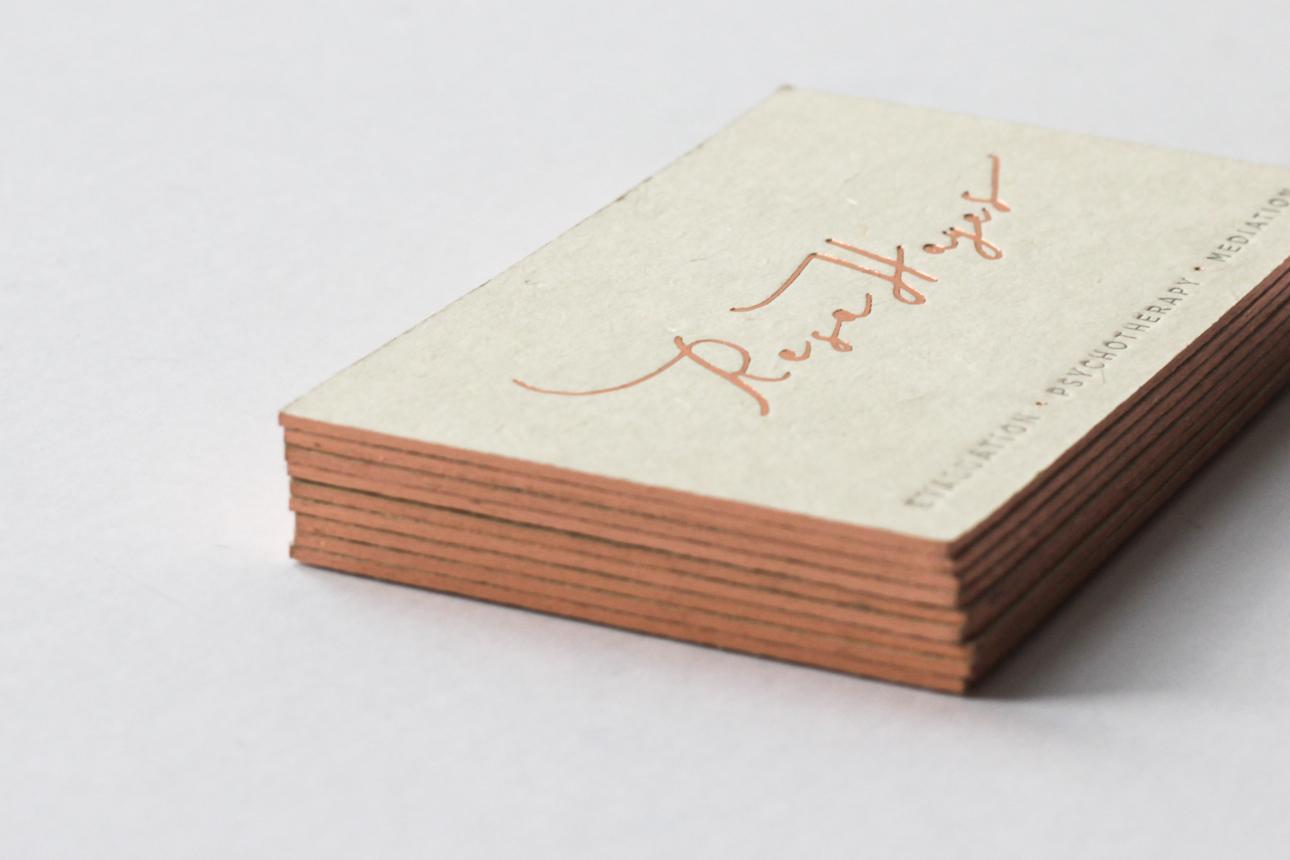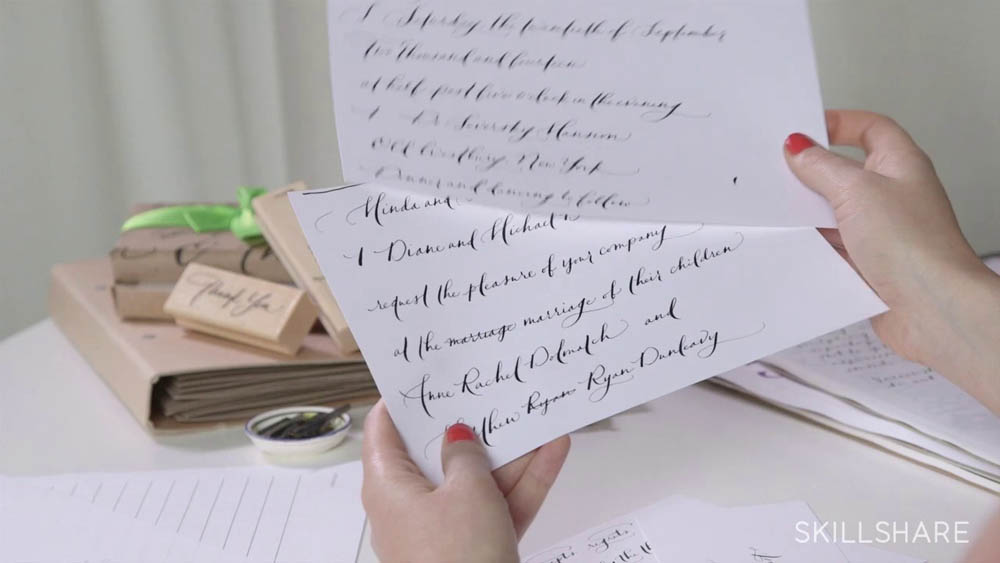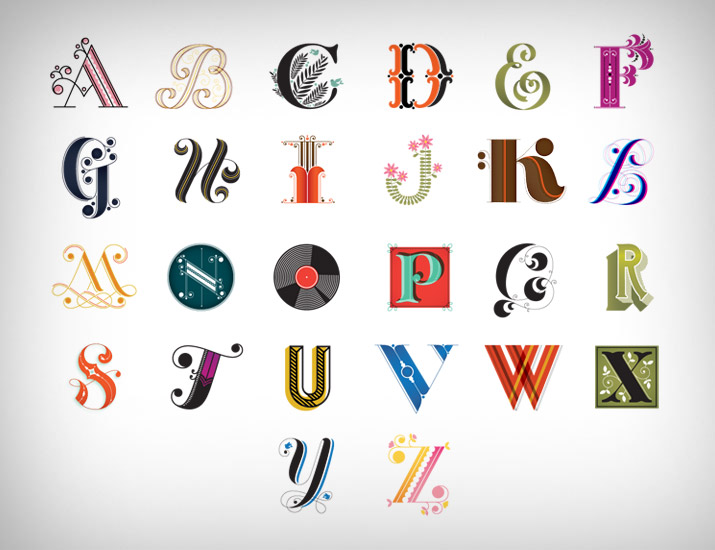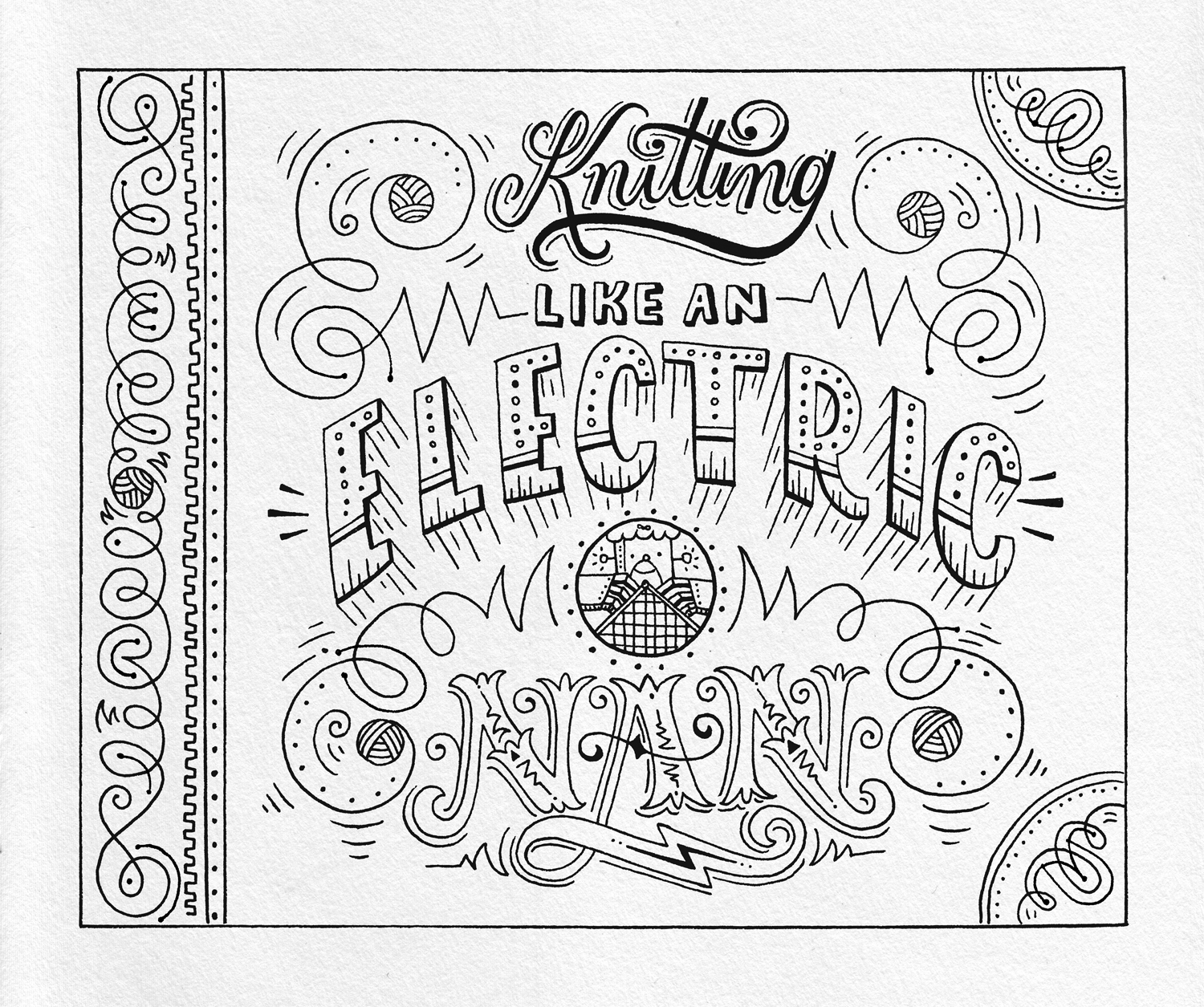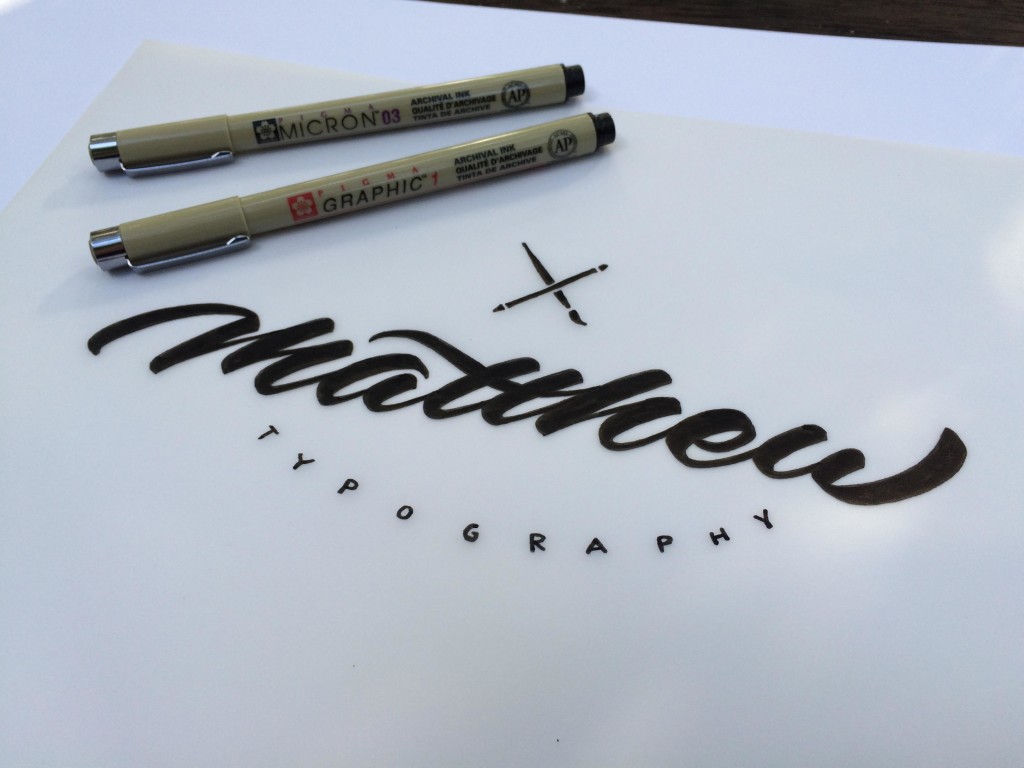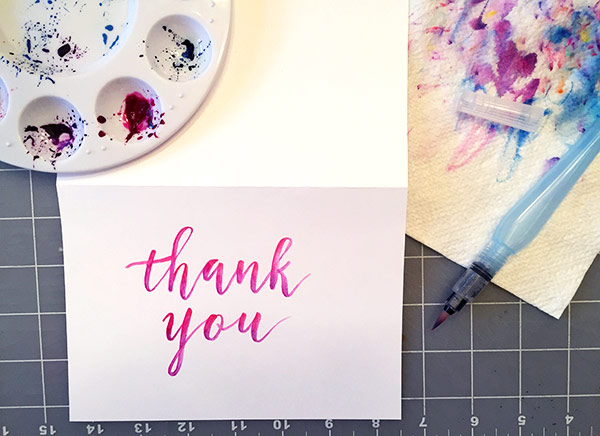
Eight Classes To Excel Your Hand Lettering
At the end of the day nearly everything comes down to practice, and as a lettering artist it's one of the most important things you can do. Before you practice though, you ideally need to learn the basics or core foundation of what you're going to be practicing, be it how to hand letter, how to create calligraphy or how to vector a logo. Skillshare provides an excellent resource for learning about many aspects of lettering and has played a very valuable part in my lettering journey throughout the last year.
As this is a bit of a celebratory article, I thought it would be a great opportunity to share with you some of the Skillshare classes that have really helped me to excel in lettering. They haven't just helped me either, they've been beneficial to many others also. It's not essential to work your way through all of them as each class caters to different areas of lettering, however each does offer unique tips and skills that can be applied to alternative types and styles of lettering. I believe that if you put the time into learn and then the time into practice, these classes can really help to excel your hand lettering.
Drawing Custom Lettering: Concept to Final Vector and Beyond - Scott Biersack
This class by Scott is really great at inspiring you to find your own lettering reference and shows you how to get the most out of the reference you collect within your lettering work. His explanation of the digitisation process is very clear and he makes the digitisation process feel a whole lot less scary.
Lettering for Designers: One Drop Cap Letterform at a Time - Jessica Hische
Jessica provides a very in-depth approach to teaching lettering. She shares the process of creating a drop cap letter and introduces professional concepts like what to expect when working with an art director.
Digitize Your Own Calligraphy: From Logo to Letterpress - Belinda Love Lee
If you're looking to build your own lettering style, this class will help you get there. Belinda focuses on calligraphy, tools, digitisation and the print process, she presents these in a way where you're free to explore your own ideas and style.
The First Steps of Hand-Lettering: Concept to Sketch (Lettering I) - Mary Kate McDevitt
Mary Kate has created a number of classes, this class has a second part which I highly recommend you work through too. This first class demonstrates in great detail a process for creating hand lettered work through the use of research, mood boards, thumbnail sketches, and more.
Brushpen Logo Design: Develop Your Signature Style - Matt Vergotis
Matt is a very talented brush lettering artist and branding designer, he shares a lot of the skills he's built up over the years in this class. Matt is a left handed letterer too, so there are some great tips to be learnt if you're a lefty in addition to all of the other techniques he shares.
Waterbrush Lettering Essentials - Teela Cunningham
Give your brush lettering a watercolour wash or create beautiful tonal changes and colour blends in this class by Teela. Throughout the lessons Teela really packs in a lot of useful tips that will help to get you much more confident with brush lettering.
Hand Lettering in Motion - Jake Bartlett
Jake Bartlett shares loads of information on how to animate lettering in his motion class. His wife creates a lot of the lettering he uses to demonstrate animation, and combined with his skills this class will really open up so many fun opportunities for you when it comes to displaying your lettering.
Calligraphy I: Writing in Classic Modern Script - Bryn Chernoff
Bryn is a very talented calligraphy artist and will take you through much of what you'd want to know about learning calligraphy when you're first starting out. This class differs from Belinda's as it encourages you to letter an existing style and then let your own style come through.
Bonus Non-Lettering Class
Watercolor Workshop: Create With Confidence - Ciarra Rouwhorst
Although Ciarra's class does not focus directly on learning lettering she does teach a skill which she often uses herself in partnership with lettering, and many others do the same. Watercolour washes used as backgrounds for lettering pieces have become quite a popular medium. Learning how to use watercolours well can make a big difference to the outcome of your lettering work, which is why I have included Ciarra's class as a bonus.